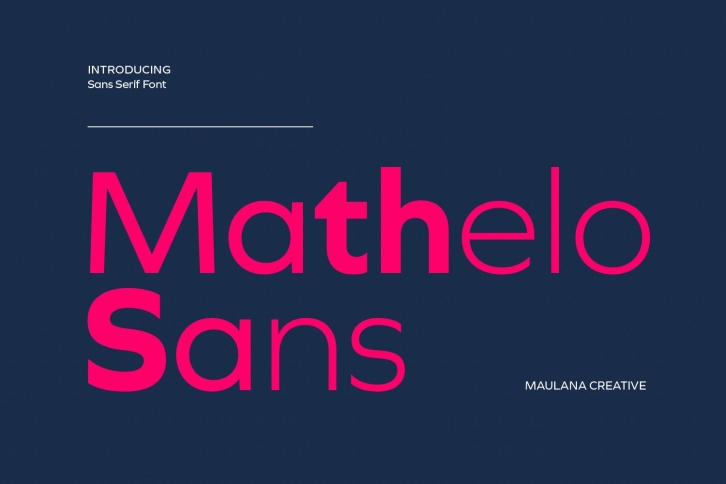
Mathelo is a modern and cool sans serif font. It has beautiful and well-balanced characters and as a result, it matches a wide pool of designs. Add it to your most creative ideas and notice how it makes them come alive!